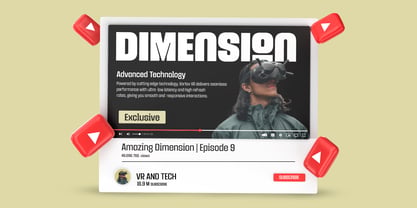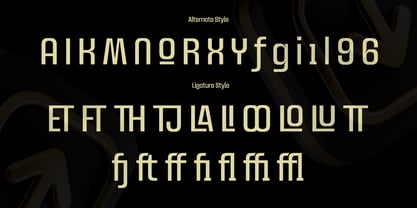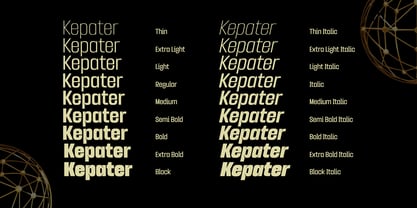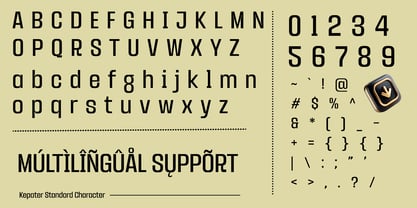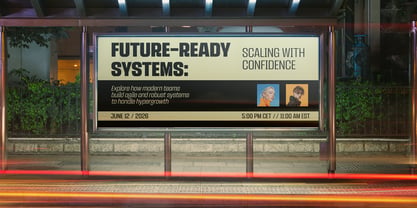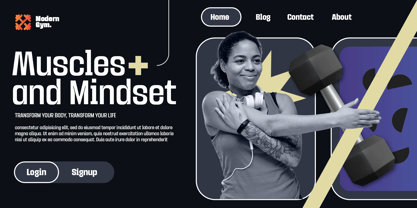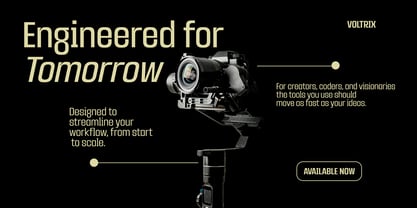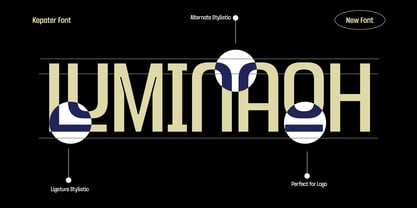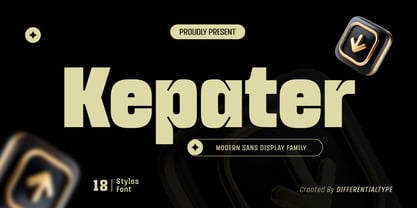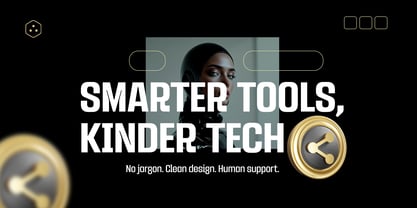
Kepater
by Differentialtype
The Kepater Font Family was designed by Sidik Sidik and published by Differentialtype. Kepater contains 18 styles and family package options. More about this family
Kepater is a modern sans-serif family meticulously designed to strike the perfect balance between functional clarity and a strong contemporary aesthetic. With its clean character profiles and precise proportions, this typeface offers an authoritative yet flexible presence suitable for a wide range of creative needs. Its minimalist design approach ensures exceptional legibility across various platforms, making it a visual identity that stands out with effortless sophistication for a global audience. Offering limitless flexibility for designers, Kepater comes equipped with a comprehensive collection of 18 styles, spanning a wide weight spectrum from delicate, elegant Thin to powerful, commanding Black—all accompanied by dynamic matching Italics. This extensive range makes Kepater a highly versatile typographic solution; it is exceptionally comfortable for long-form body text in documents or digital applications, while remaining incredibly impactful for headlines, product branding, and logo design. Kepater is the intelligent choice for creating a professional and harmonious visual hierarchy in any design project.
Designers: Sidik Sidik
Current Foundry: Differentialtype